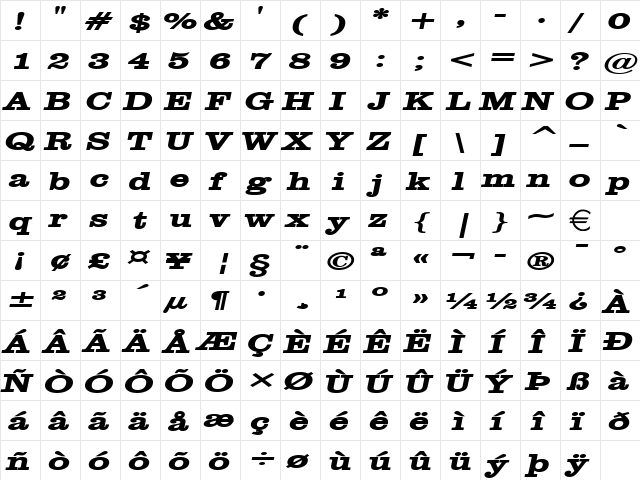
ClareExtended BoldItalic Font Preview
ClareExtended BoldItalic
Design Context for ClareExtended Typeface
ClareExtended takes a measured approach to typography — its balanced proportions and neutral character make it a reliable workhorse for both digital and print work. The dynamic lean of this cut emphasises speed and emphasis in any layout. The heavy weight commands attention and anchors typographic hierarchies.
Pro Tip: Use ClareExtended for emphasis, pull quotes, and subheadings where its slanted energy can add rhythm to the layout.